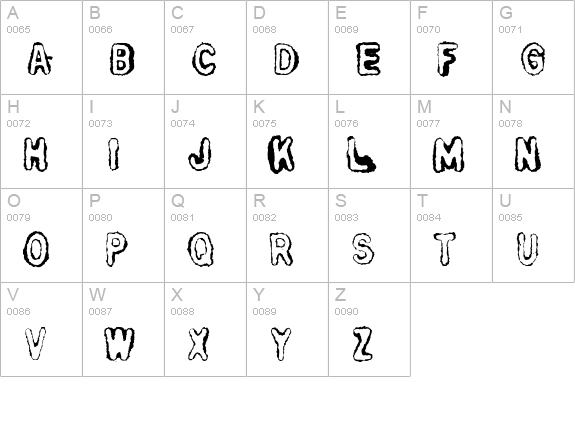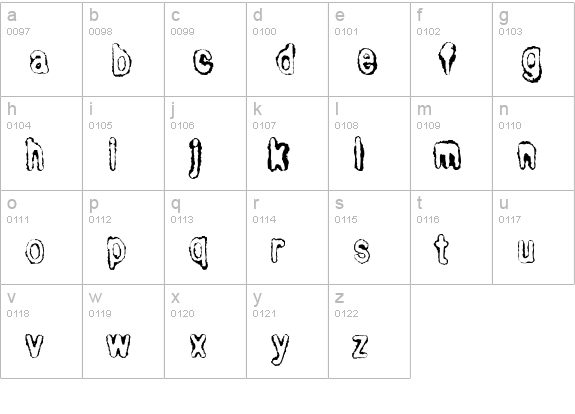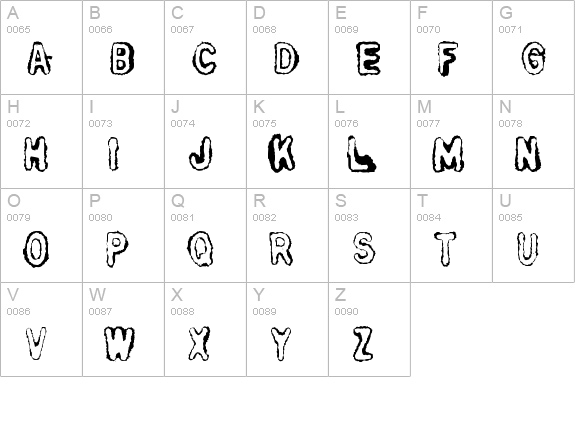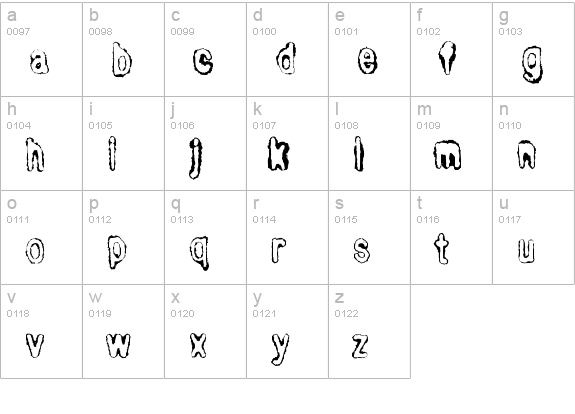
Bull Outline font is a bold and striking typeface that exudes power and strength. Its unique outline design gives it a modern and edgy look, perfect for making a statement in your designs. This font is versatile and can be used for a variety of projects, from branding to posters to social media graphics. The best part? Bull Outline font is available for free download at FontsMarket.com. This means you can easily add this eye-catching font to your collection without any cost. Don't miss out on the opportunity to enhance your designs with the impactful Bull Outline font - download it now and let your creativity shine!